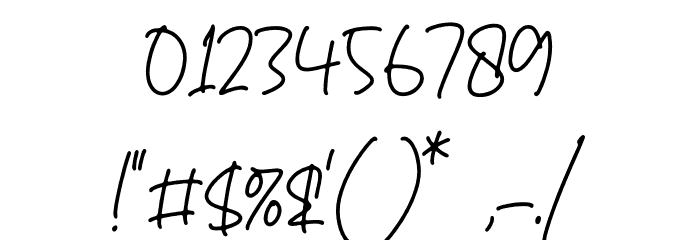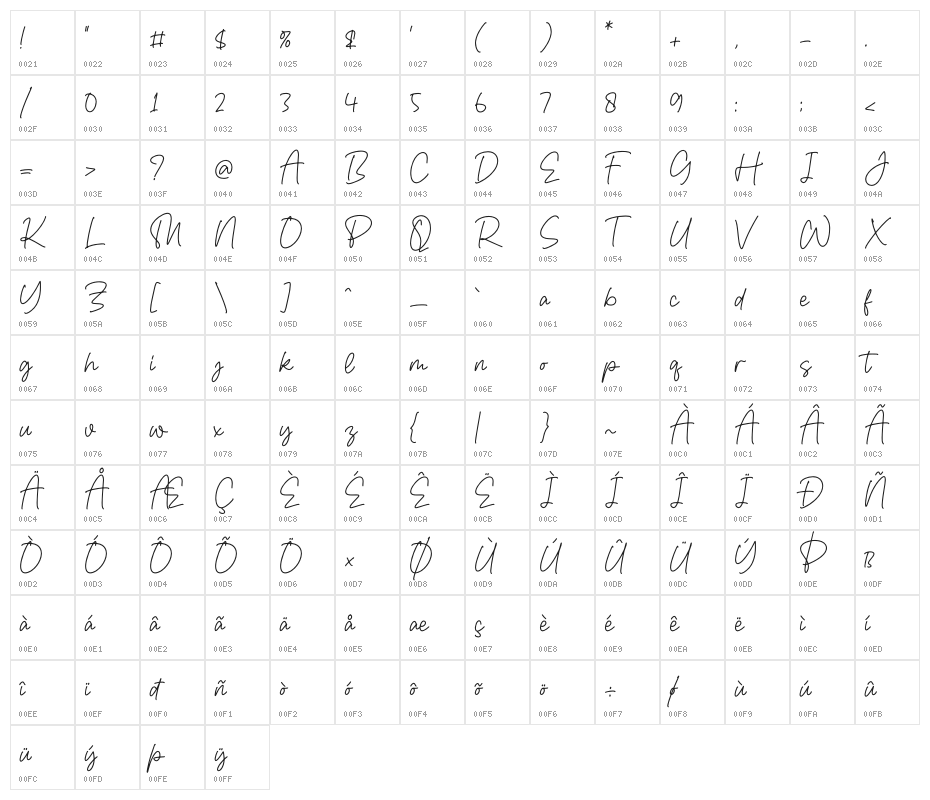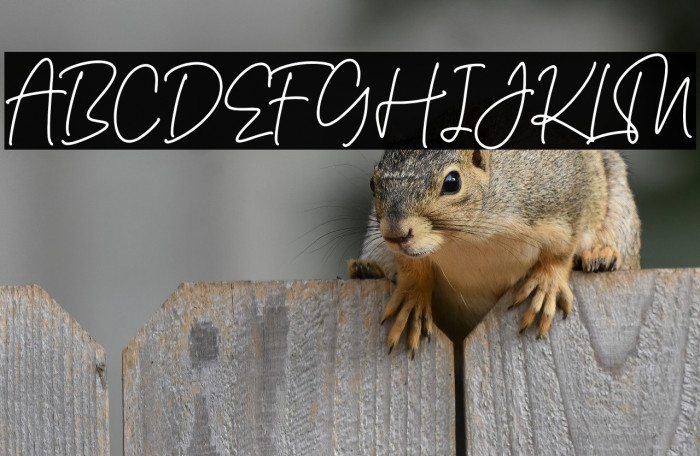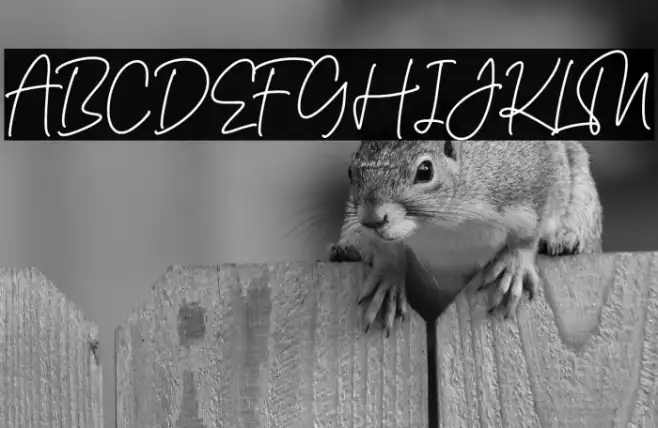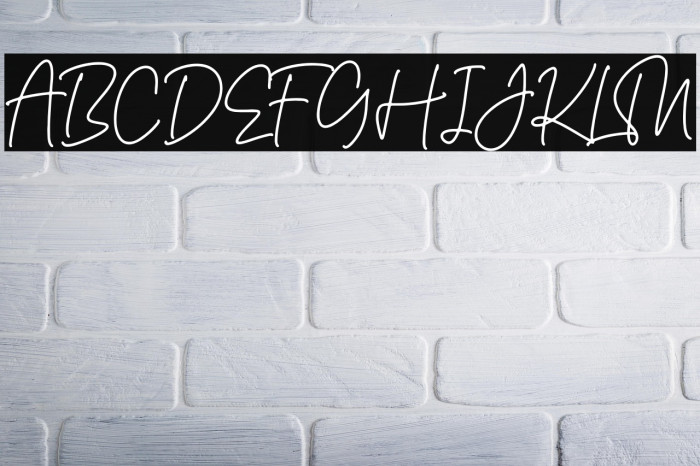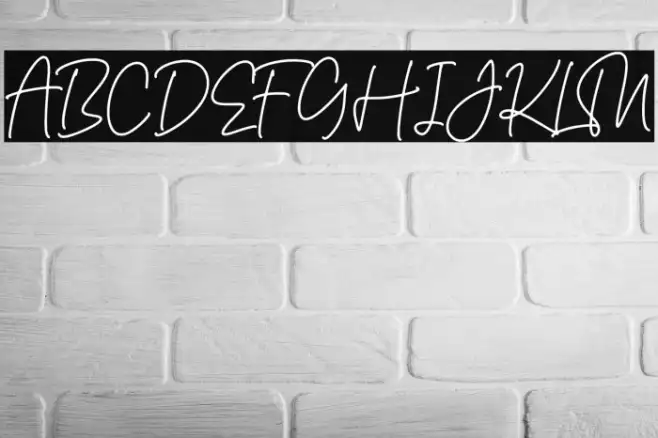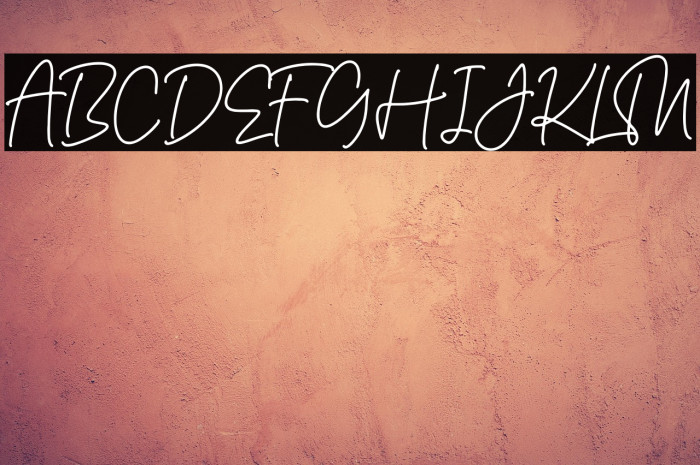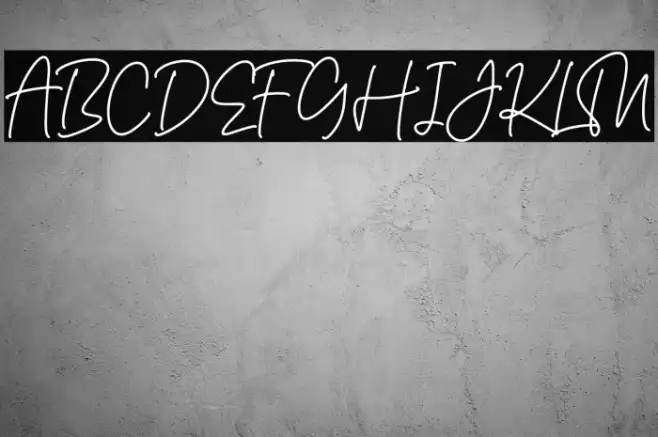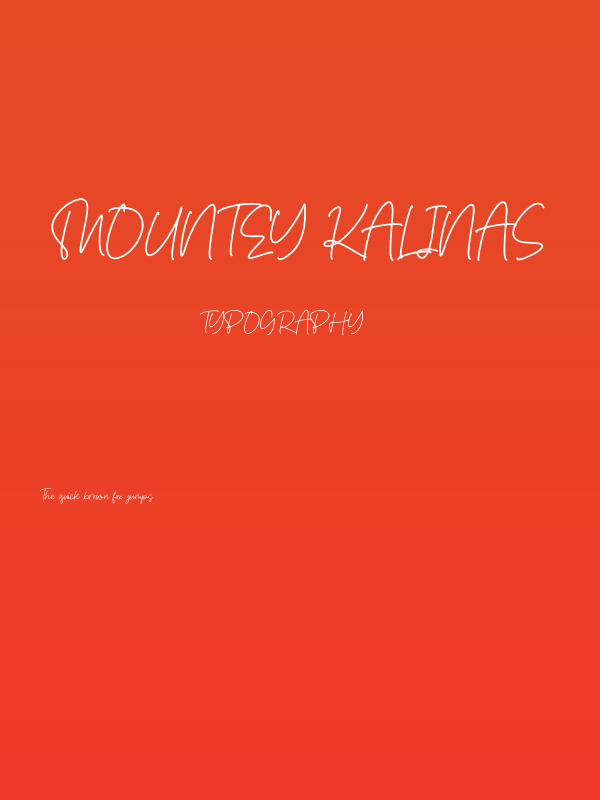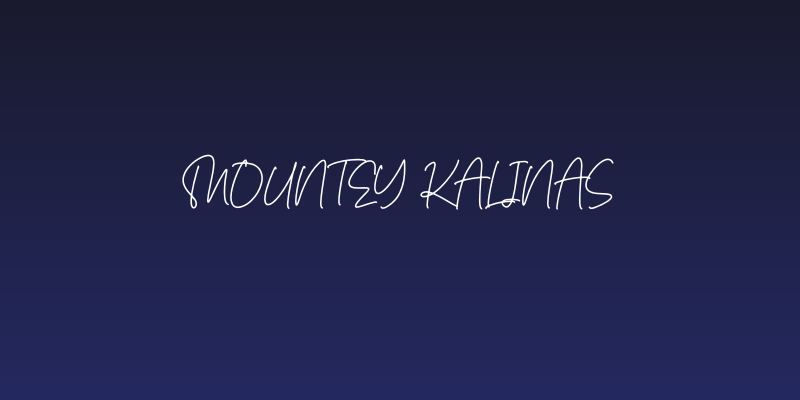
Mountey Kalinas Font
This font exhibits a lively and fluid handwritten style, characterized by its cursive and connected letterforms. The strokes are smooth and continuous, giving it an organic and personal touch. The uppercase letters maintain a consistent height, while the lowercase letters feature a slight slant, enhancing the dynamic flow of the text. Numbers and special characters are designed to match the playful and informal aesthetic, making it suitable for creative and expressive projects. The overall appearance is casual yet elegant, with a modern twist that appeals to contemporary design sensibilities.
| Proposed Projects | Ideal for personal branding, invitations, greeting cards, and creative projects that require a personal touch. |